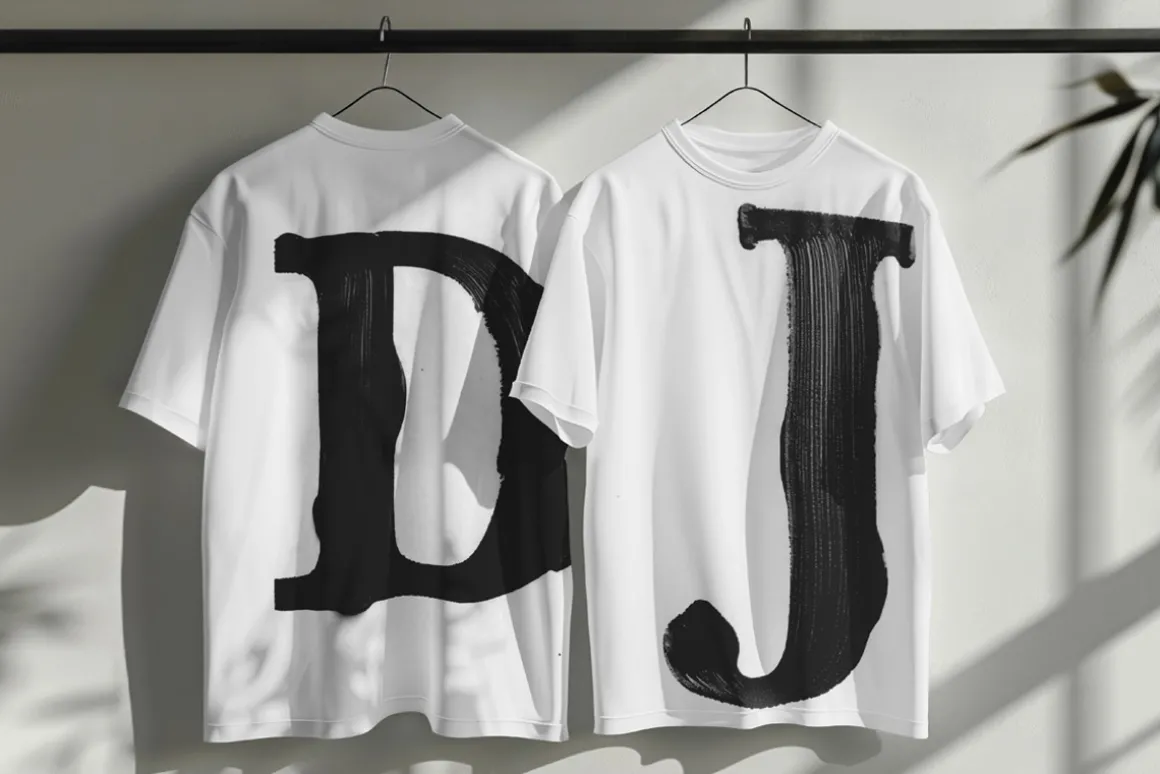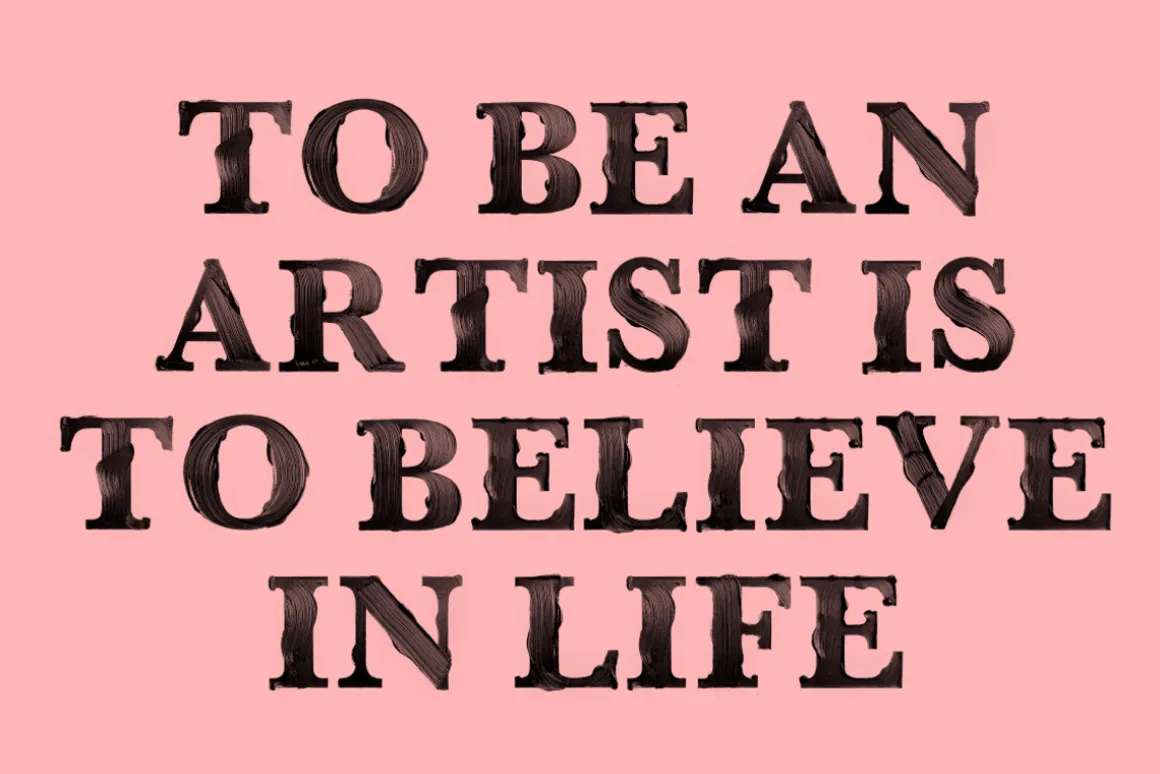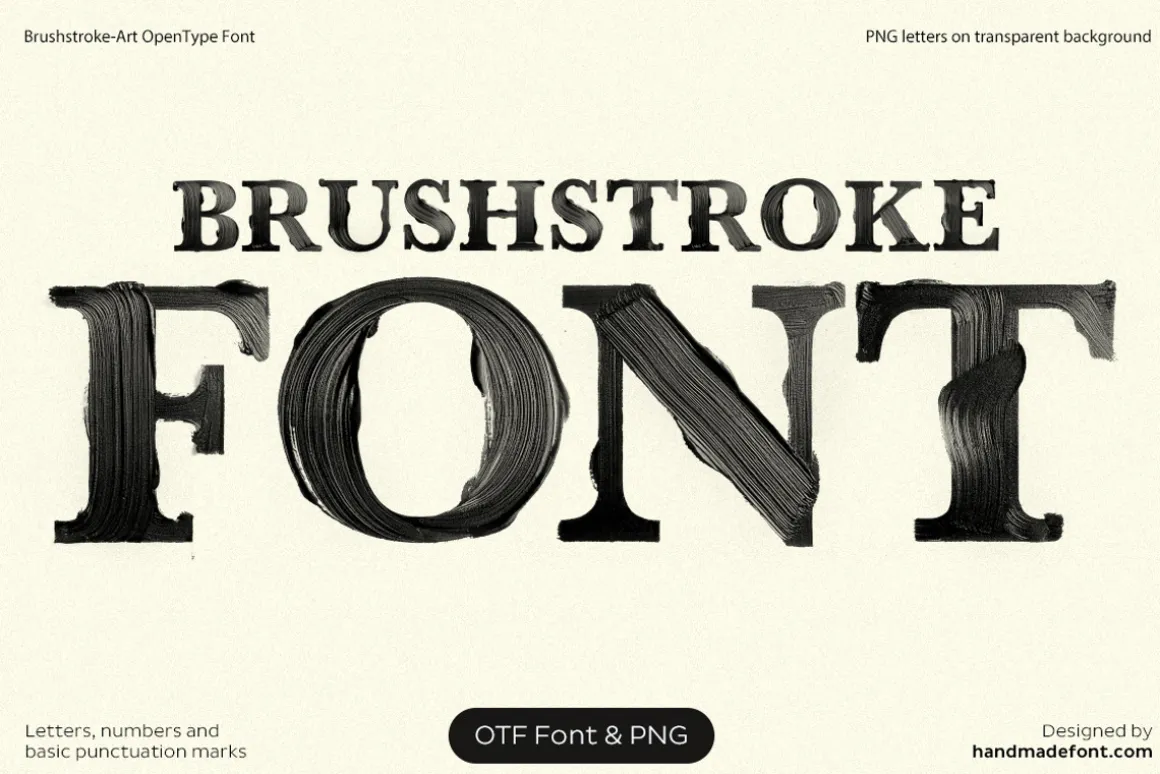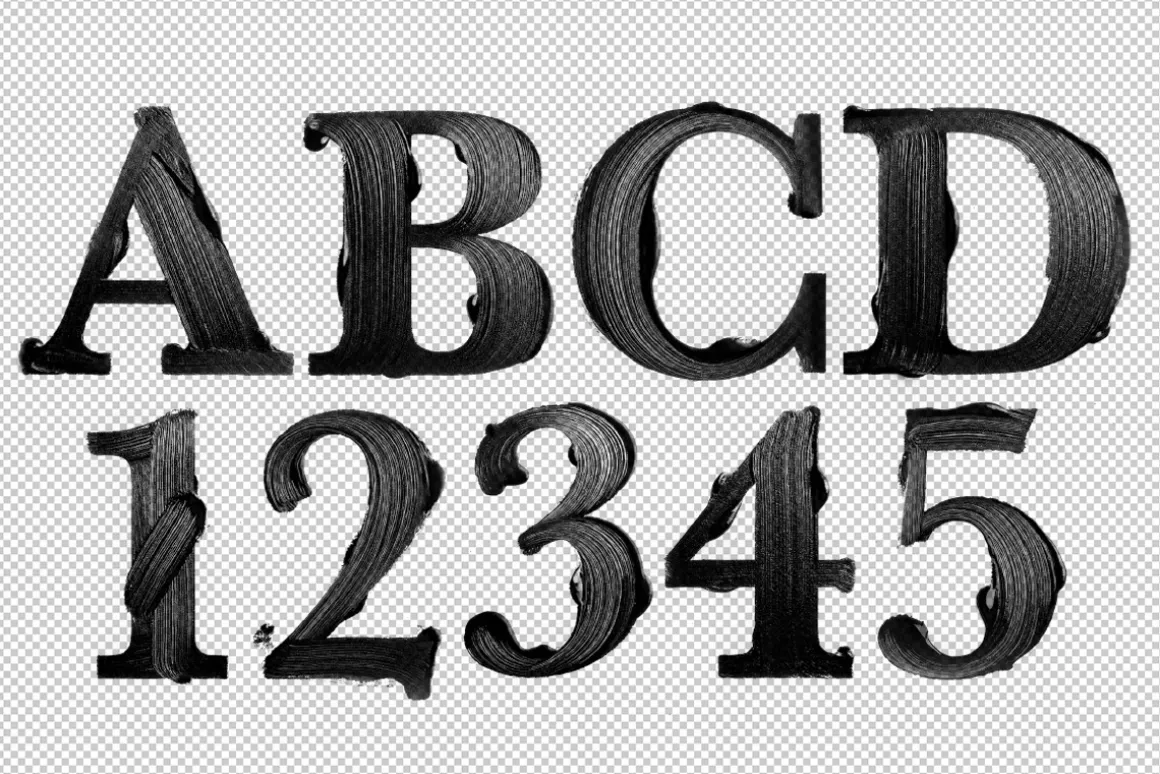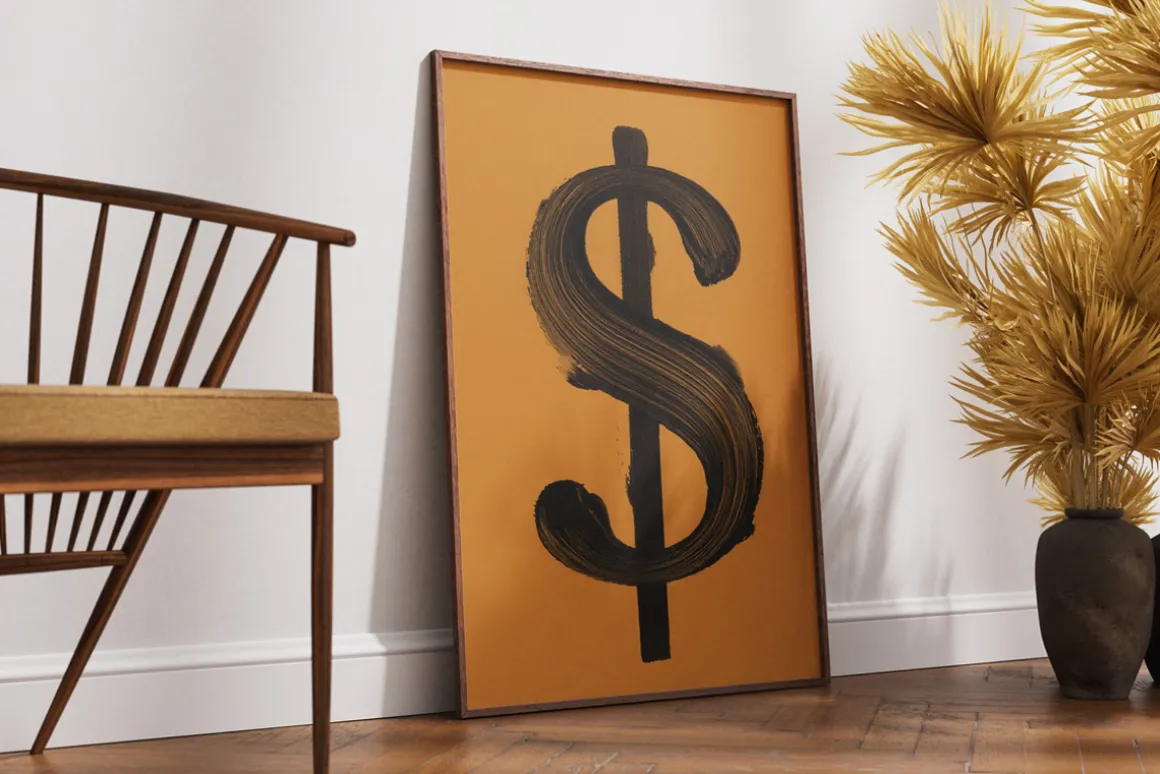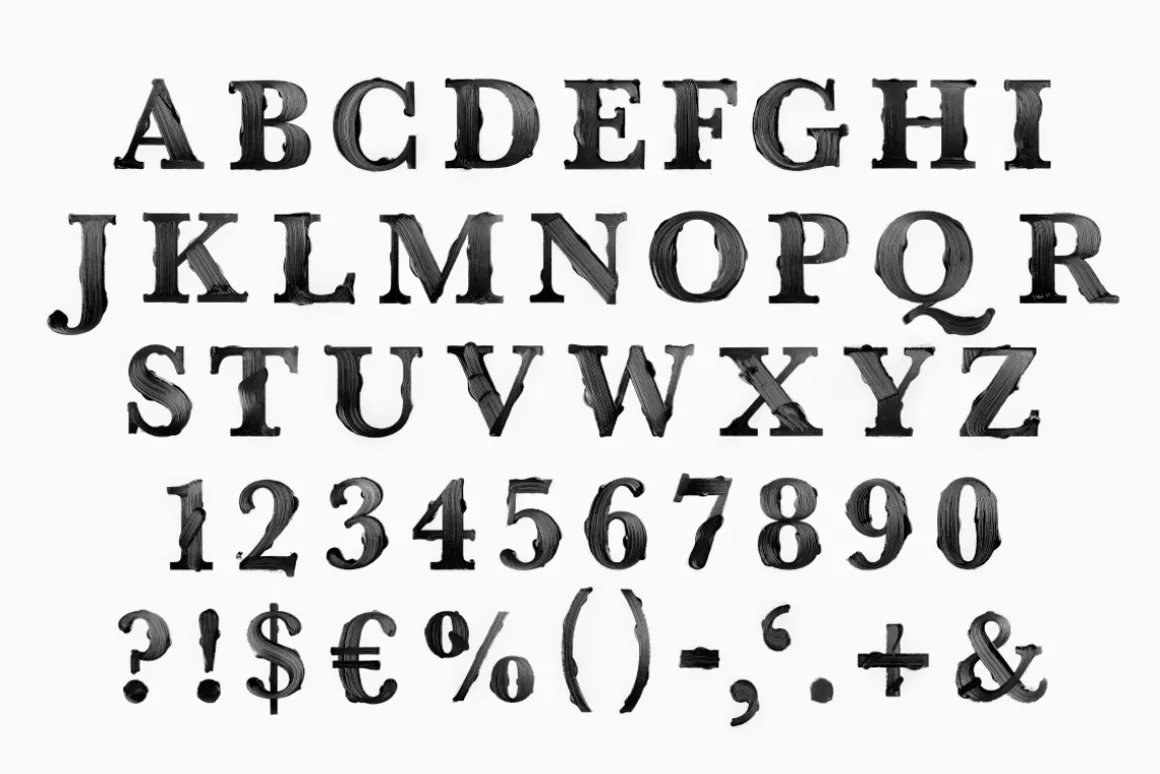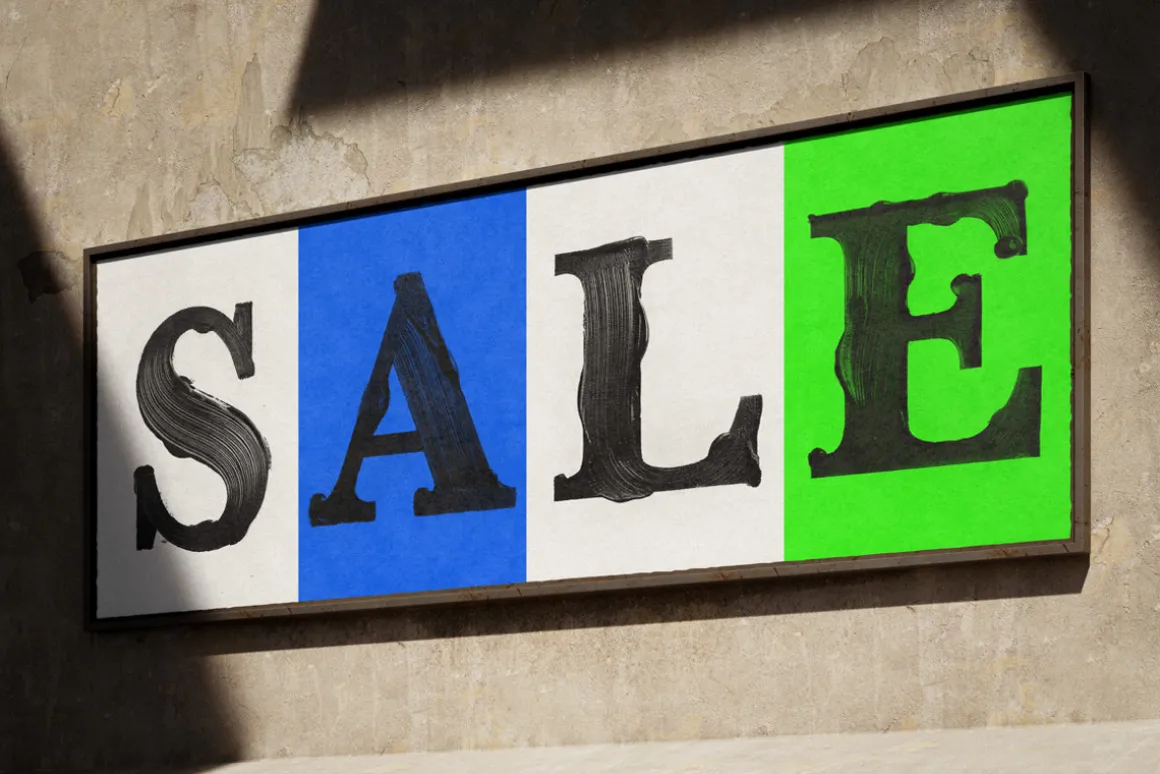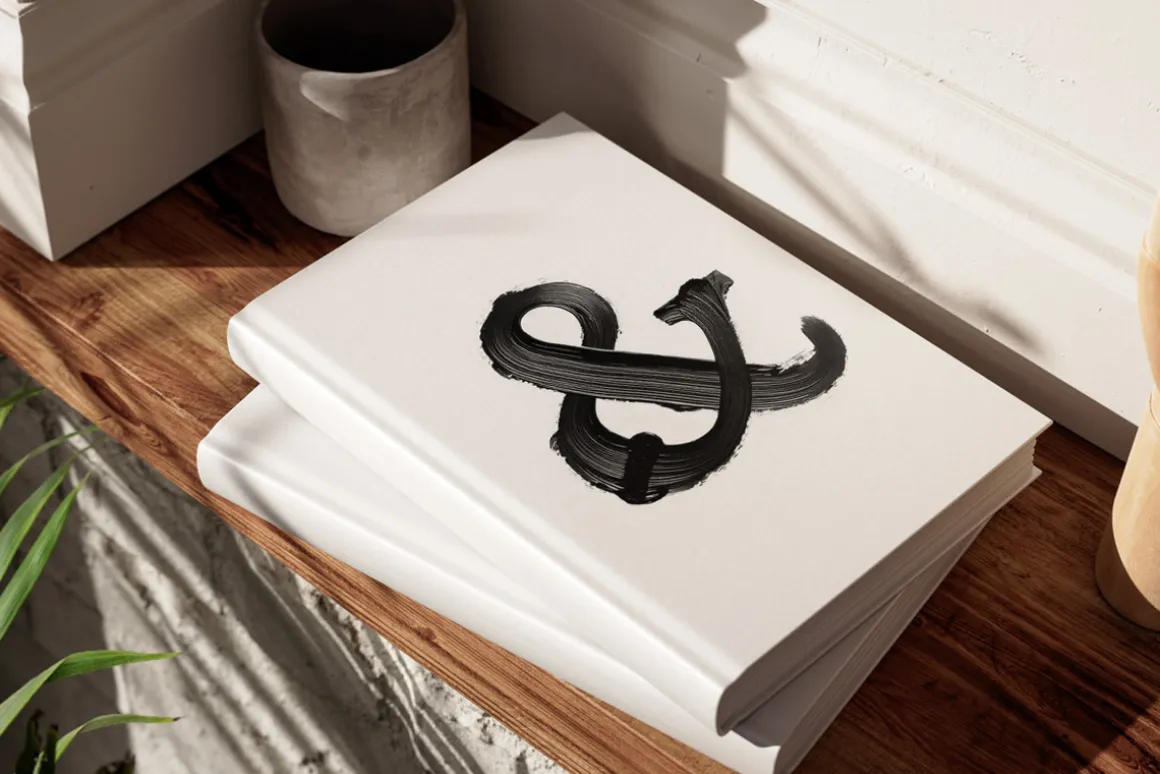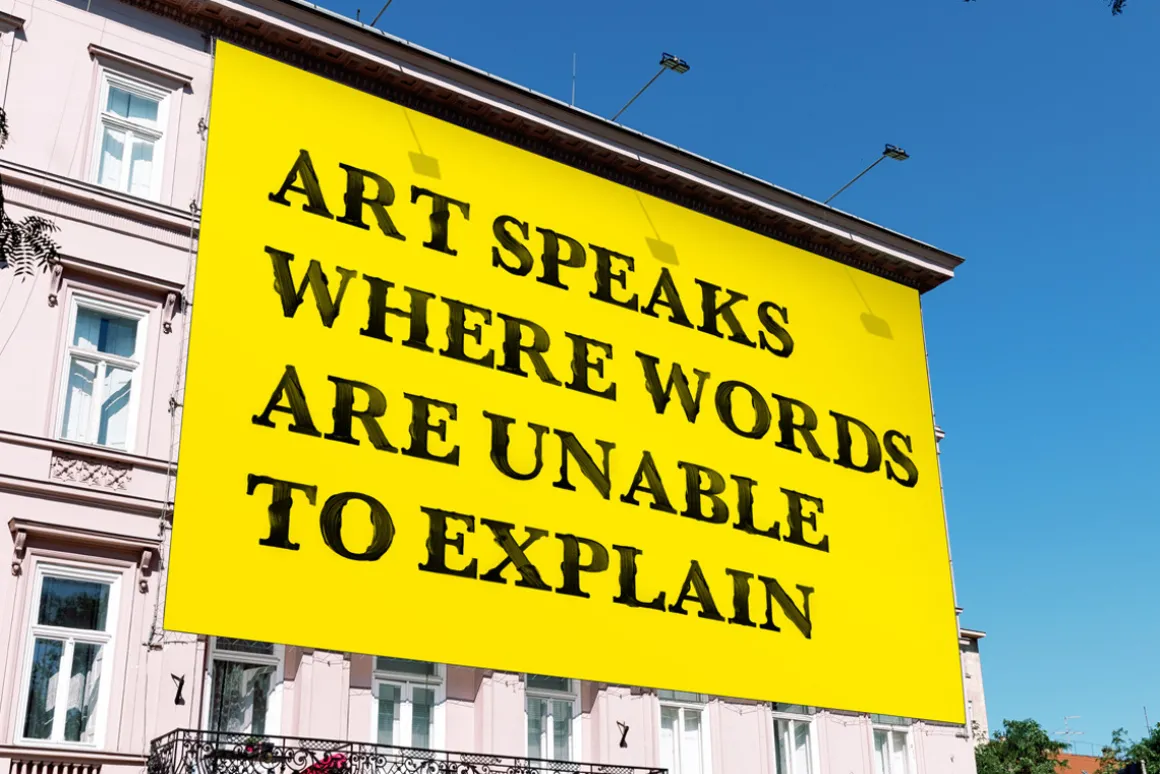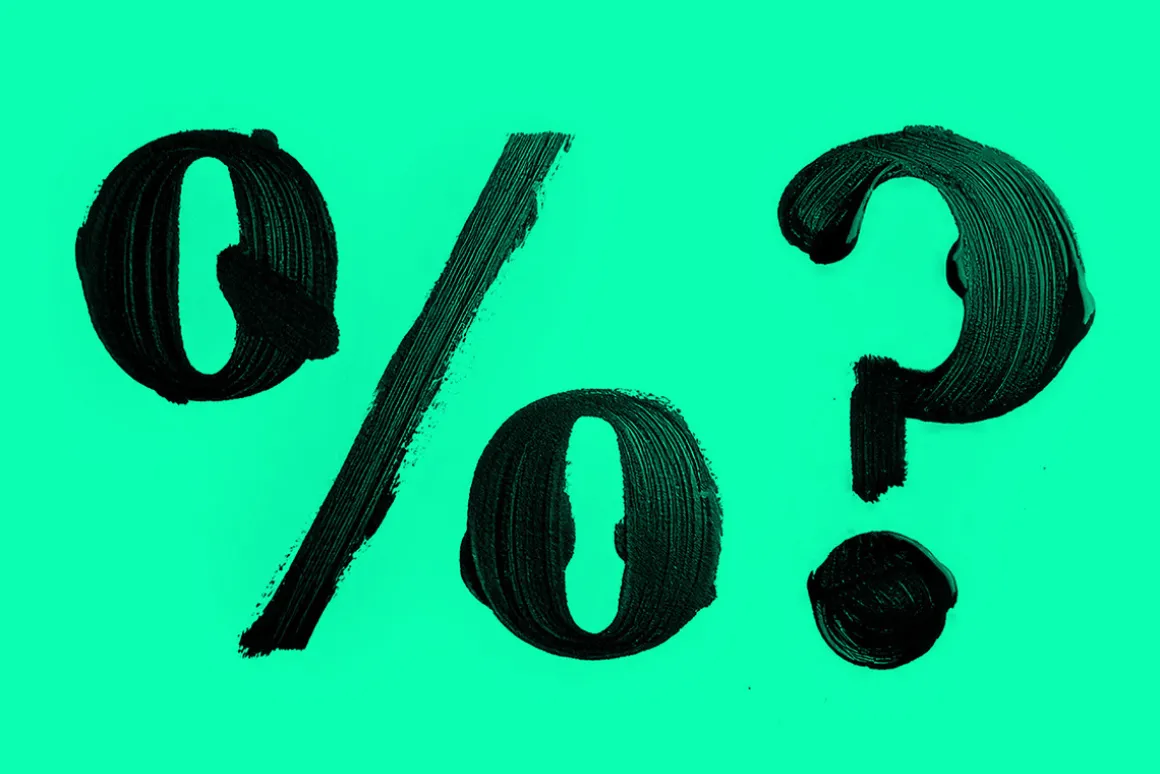
Art breathes life into the Brushstroke Art Font, where each letter emerges from bold, inky strokes—wild yet meticulously controlled. This brushstroke alphabet fuses raw artistic energy with geometric precision, as if a painter’s brush met an architect’s blueprint. Thick, black strokes slash across an invisible canvas, their texture echoing the depth of acrylic, watercolor, and oil. Symmetry dances with chaos; pointed apex meets flat crossbar in a mesmerizing contrast of movement and order. A fusion of brushstroke lettering and modern minimalism, this brushstroke typography speaks in bold whispers—perfect for logos, signage, and designs craving an untamed artistic edge.
A high definition OpenType Font. Contains uppercase characters, numerals and basic punctuation. (Draw height roughly 800 pixels). All letters and glyphs that comprises this font you can see on the preview.
- Letters : A B C D E F G H I J K L M N O P Q R S T U V W X Y Z
- Numbers : 0 1 2 3 4 5 6 7 8 9
- Others : ! ? – . ‘ $ € % & # @